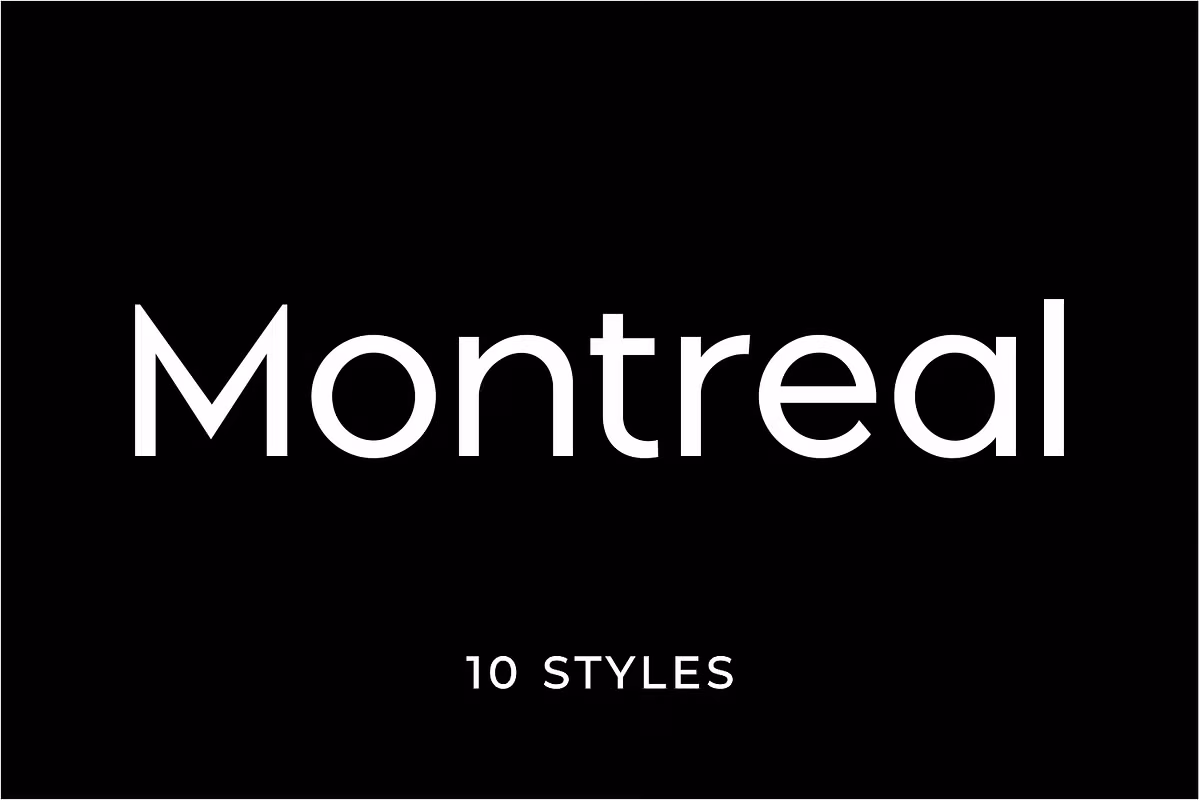
Montreal – Geometric Sans Serif Font Free Download is a clean and modern typeface that combines the precision of geometric design with the versatility of sans-serif typography. Featuring bold, balanced letterforms and sharp, clean lines, this font is perfect for a wide range of applications, including branding, logos, web design, editorial layouts, and more.
Montreal offers a contemporary, minimalist aesthetic while maintaining readability and style, making it ideal for both digital and print projects. Whether you’re designing a modern brand identity or creating eye-catching headlines, Montreal provides clarity and strength to your designs.
Add a modern, sleek feel to your designs with the geometric simplicity of Montreal!